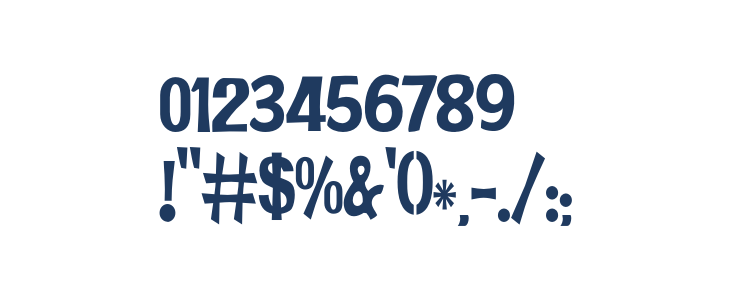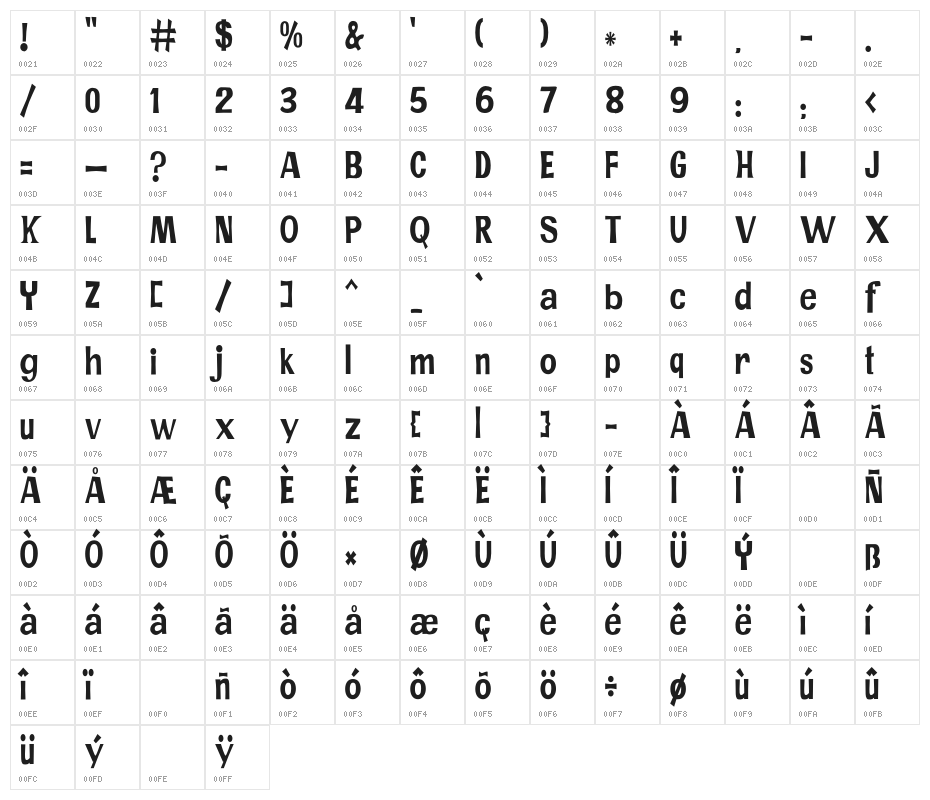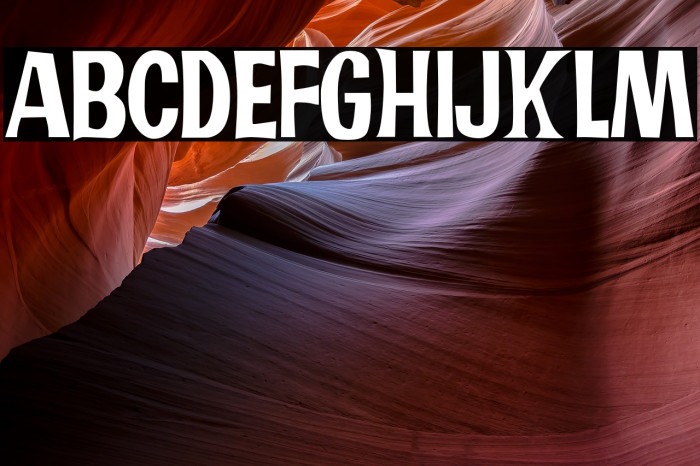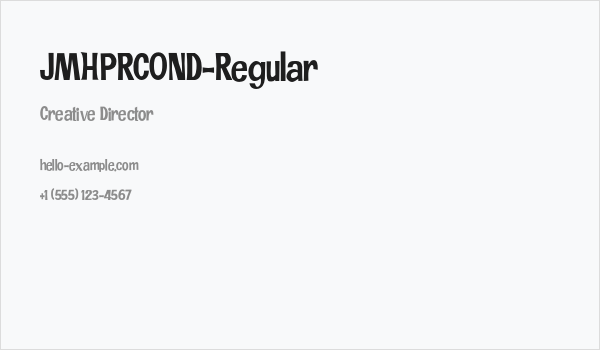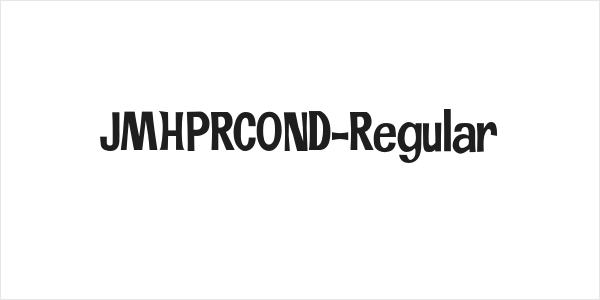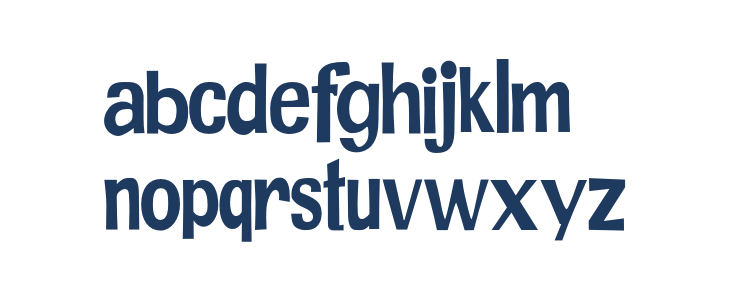
JMHPRCOND-Regular Font
JMHPRCOND-Regular Description
This font features bold, dynamic characters with a slightly condensed appearance, making it stand out with its strong visual impact. The uppercase letters are particularly striking, with a unique flair in their design that adds a touch of personality. The lowercase letters maintain a consistent style, ensuring readability while still being visually engaging. The numbers are robust and clear, suitable for a variety of applications. Special characters are well-designed, complementing the overall aesthetic. The font's boldness and condensed nature make it ideal for attention-grabbing headlines and impactful designs.
| Proposed Projects | Ideal for headlines, posters, branding, and any design requiring a bold statement. |